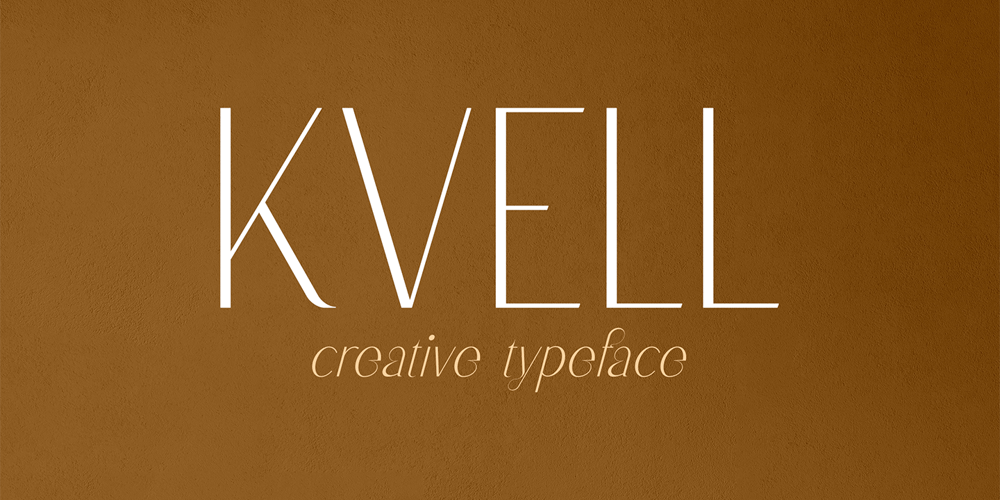
Kvell
Kvell font
Kvell Font Family was designed by Vladimir Fedotov, Plamen Petrov and published by VP Creative Shop. Kvell contains 2 styles and family package options. Introducing Kvell – elegant display typefaceKvell is luxury and tall font with multilingual support. It’s a very versatile font that works great in large and small sizes.Kvell is perfect for branding projects, home-ware designs, product packaging, magazine headers – or simply as a stylish text overlay to any background image.FEATURES Uppercase, lowercase, numeral, punctuation & Symbol Regular Italic Multilingual support No special software is required to type out the standard characters of the Typeface. Canva friendly Feel free to contact me if you have any questions!Mock ups and backgrounds used are not included.Thank you! Enjoy!